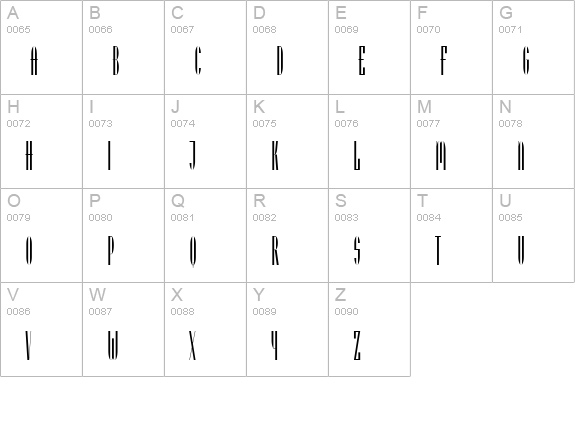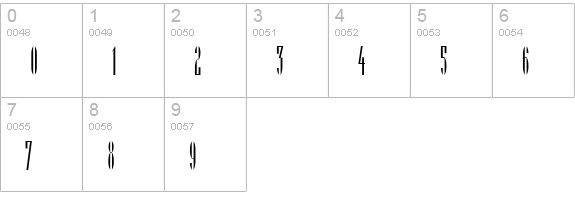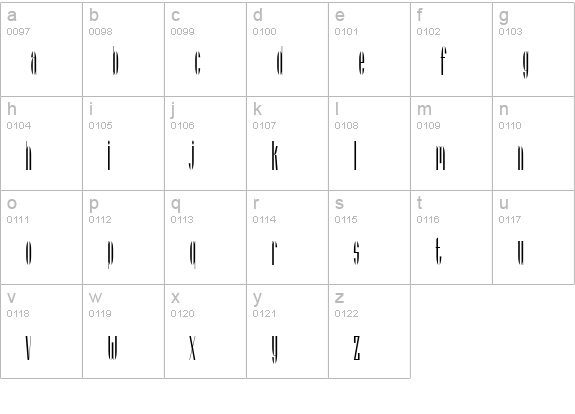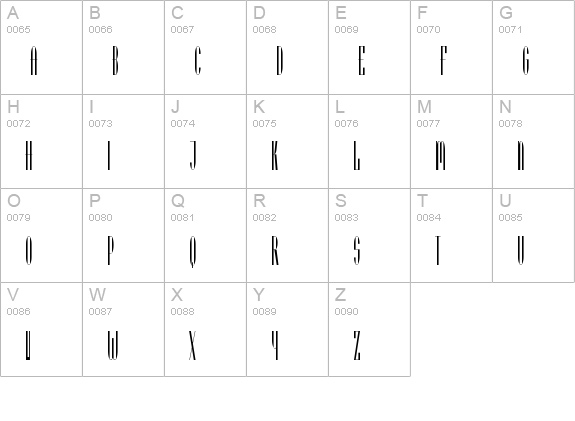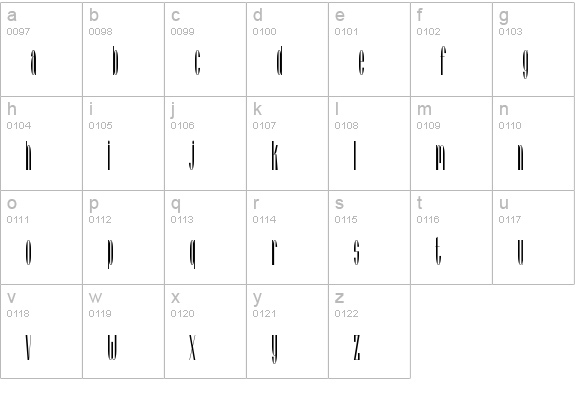
Spitbol SSi Font Details
Introducing Spitbol SSi, a captivating font that effortlessly combines sophistication with a touch of playfulness. This unique typeface is crafted with meticulous attention to detail, making it a perfect choice for a wide range of creative projects. Spitbol SSi boasts a bold and charismatic presence that immediately grabs attention. Its exquisite curves and smooth lines lend a sense of elegance, while the slight asymmetry adds a hint of whimsy and intrigue. This harmonious blend of elements creates a font that is both visually striking and highly versatile. One of the most remarkable aspects of Spitbol SSi is that it is freely available to download at FontsMarket.com. This means that designers, artists, and creators from all walks of life can easily access and utilize this remarkable font without any financial limitations. Whether you're working on a personal passion project or a professional endeavor, Spitbol SSi provides a powerful and expressive tool that is accessible to all. With its extensive character set, Spitbol SSi allows for a wide range of creative possibilities. From eye-catching headlines to elegant invitations, from striking logos to captivating web designs, this font effortlessly adapts to any visual context. Its legibility remains uncompromised even at smaller sizes, ensuring that your message is clear and accessible to all who encounter it. The versatility of Spitbol SSi extends beyond its visual appeal. Its compatibility with various software and operating systems ensures a seamless integration into any design workflow. Whether you're using Adobe Creative Suite, Microsoft Office, or any other design platform, Spitbol SSi guarantees a hassle-free experience, allowing you to focus on the creative process. In conclusion, Spitbol SSi is a font that combines elegance, playfulness, and accessibility in a unique and captivating way. Its freely available download at FontsMarket.com makes it a valuable asset for designers and creators seeking to bring their visions to life. So why wait? Unlock the creative potential of Spitbol SSi and let your imagination soar.